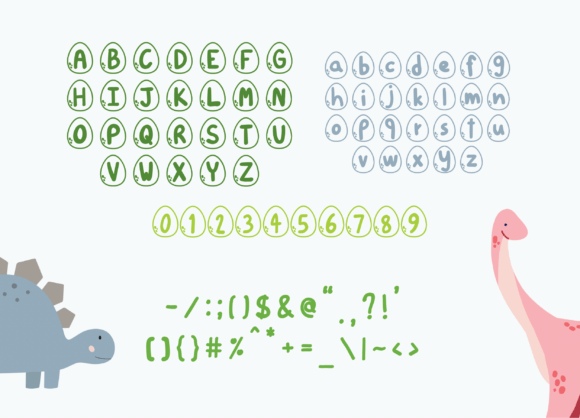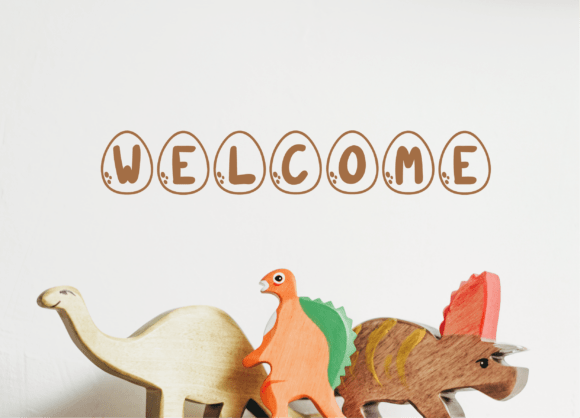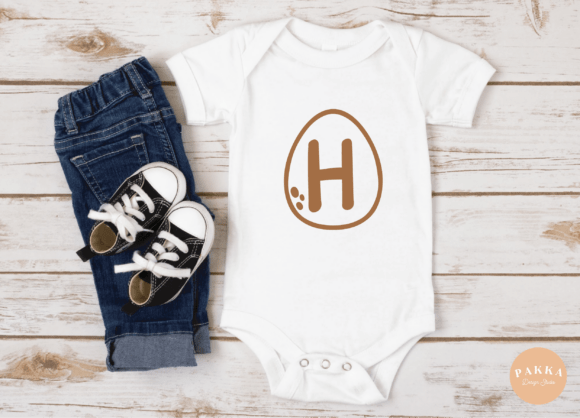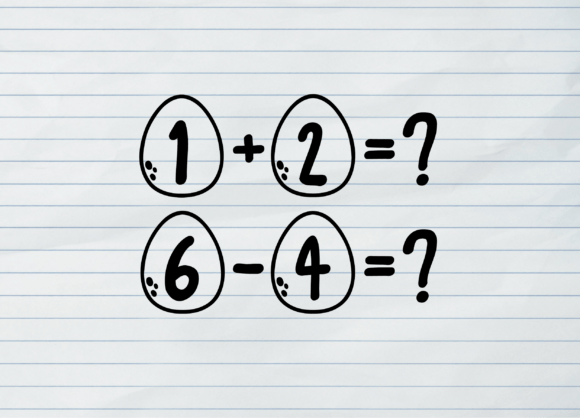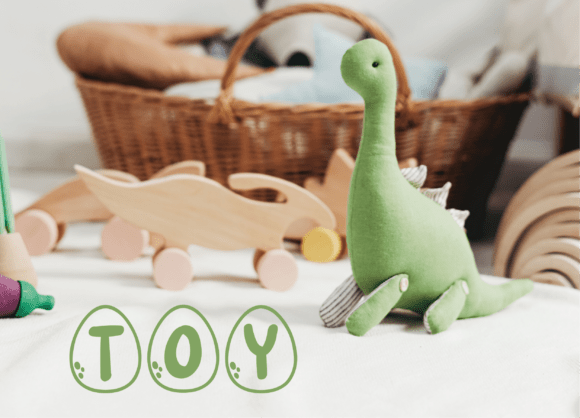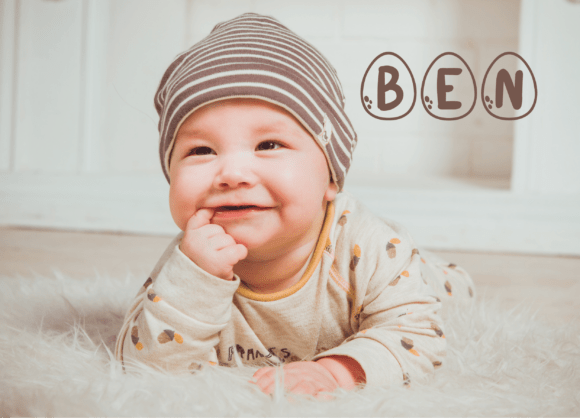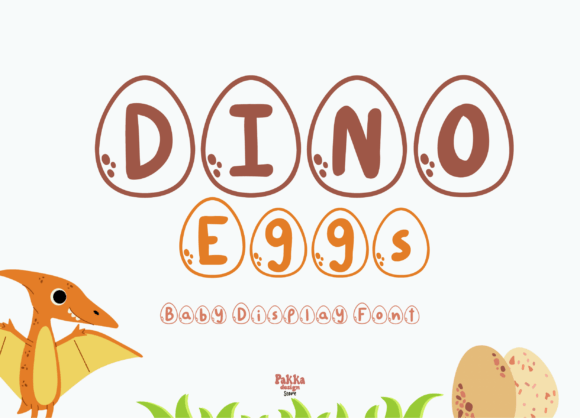
Unleash Your Creativity with Dino Eggs Font: A Delightful Typeface for Designers and Crafters
Are you tired of using the same old fonts for your design projects? Look no further! Introducing Dino Eggs, a charming and delightful font that’s sure to add a touch of whimsy to your creations. This quirky typeface is inspired by the universal adorableness of dinosaur eggs and is perfect for a range of projects, from crafting to educational pursuits.
The Unique Features of Dino Eggs Font
So, what makes Dino Eggs font so special? For starters, its unique egg-shaped contour sets it apart from other fonts. The egg-shaped design gives the font a playful and child-friendly appeal that’s sure to delight kids and adults alike. Whether you’re creating fun-filled math sheets for kids or designing adorable crafts, Dino Eggs font is the perfect solution.
Another standout feature of Dino Eggs font is its versatility. This font is suitable for a wide range of projects, including:
- Crafting: Add a touch of whimsy to your crafting projects, such as DIY cards, gift tags, and scrapbooking.
- Education: Create engaging and interactive learning materials, such as math sheets, worksheets, and activity sheets.
- Design: Use Dino Eggs font to add a playful touch to your graphic design projects, such as logos, posters, and flyers.
Bringing a Touch of Whimsy to Everyday Tasks
Dino Eggs font is more than just a font – it’s a whimsical journey back to the era of the dinosaurs. With its child-friendly appeal, this font effortlessly brightens kids’ tasks, making everyday activities feel more like play. Imagine creating a math sheet with a fun and quirky font that makes kids excited to learn. That’s what Dino Eggs font can do for you!
For teachers, Dino Eggs font is an enchanting tool for creating engaging and interactive learning materials. Whether you’re designing worksheets, activity sheets, or educational posters, this font is sure to capture kids’ attention and make learning fun.
Why Designers and Crafters Love Dino Eggs Font
So, why do designers and crafters love Dino Eggs font? Here are just a few reasons:
- Unique design: The egg-shaped contour of Dino Eggs font makes it stand out from other fonts.
- Child-friendly appeal: This font is perfect for creating fun and engaging materials for kids.
- Versatility: Dino Eggs font is suitable for a wide range of projects, from crafting to education.
In conclusion, Dino Eggs font is a charming and delightful typeface that’s perfect for designers and crafters looking to add a touch of whimsy to their projects. With its unique egg-shaped contour, child-friendly appeal, and versatility, this font is sure to delight kids and adults alike. Whether you’re creating fun-filled math sheets or designing adorable crafts, Dino Eggs font is the perfect solution. So why wait? Download Dino Eggs font today and unleash your creativity!